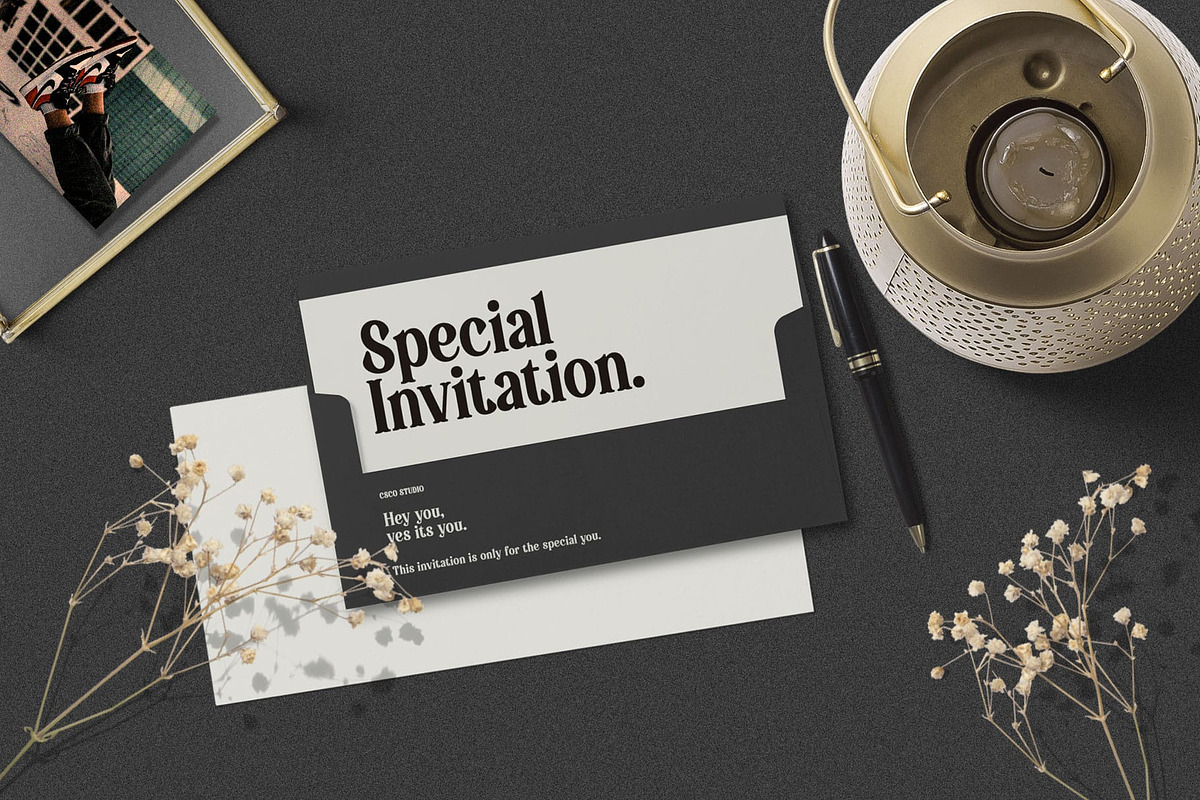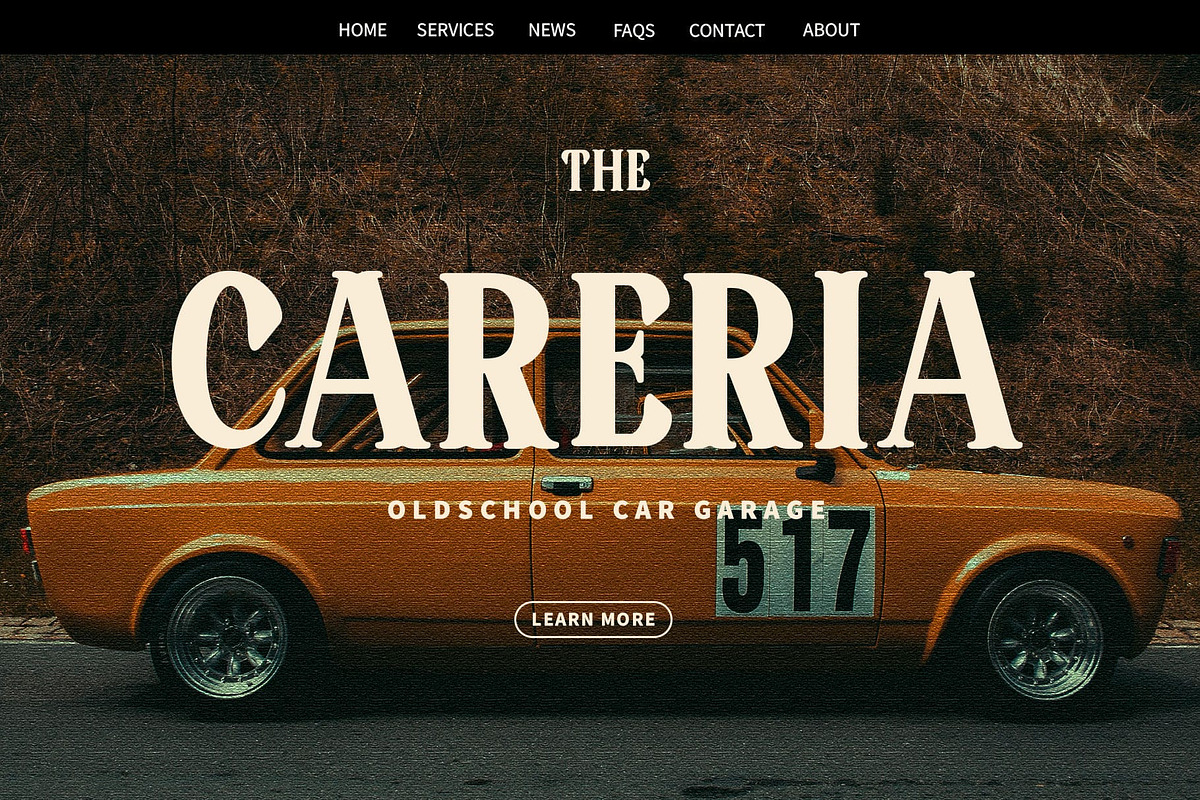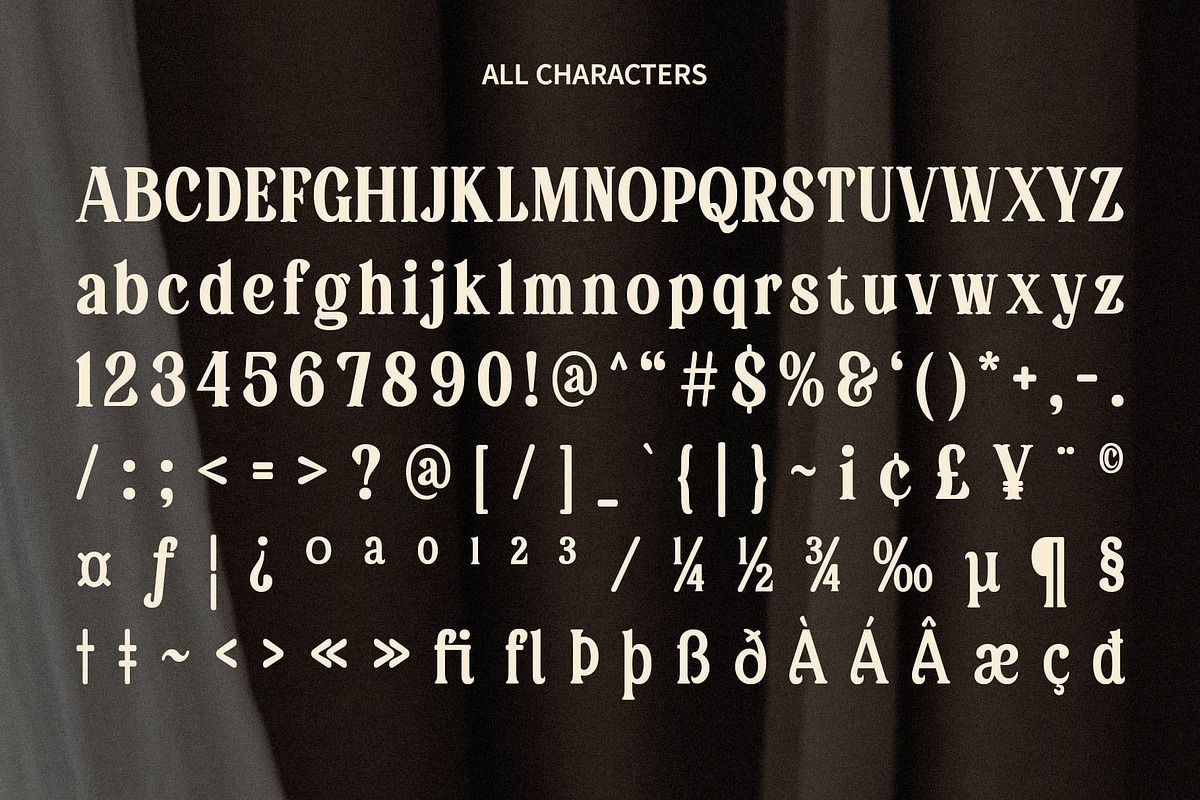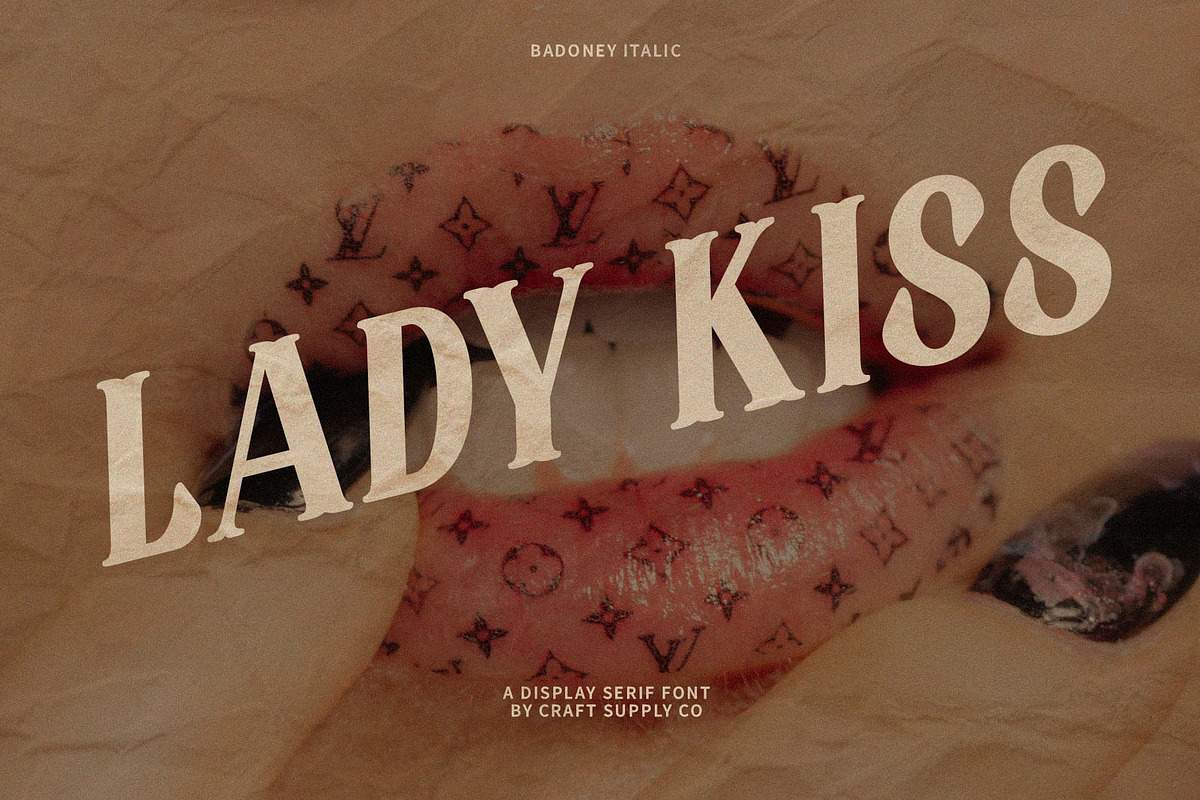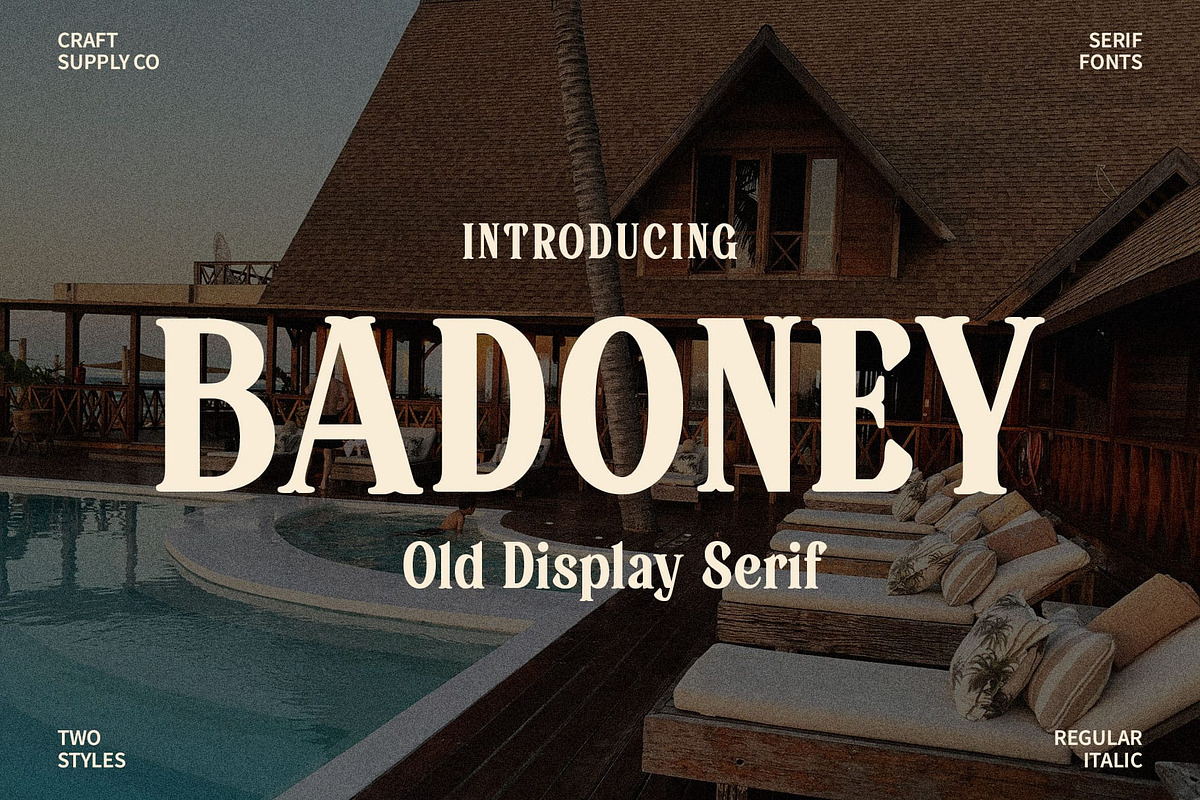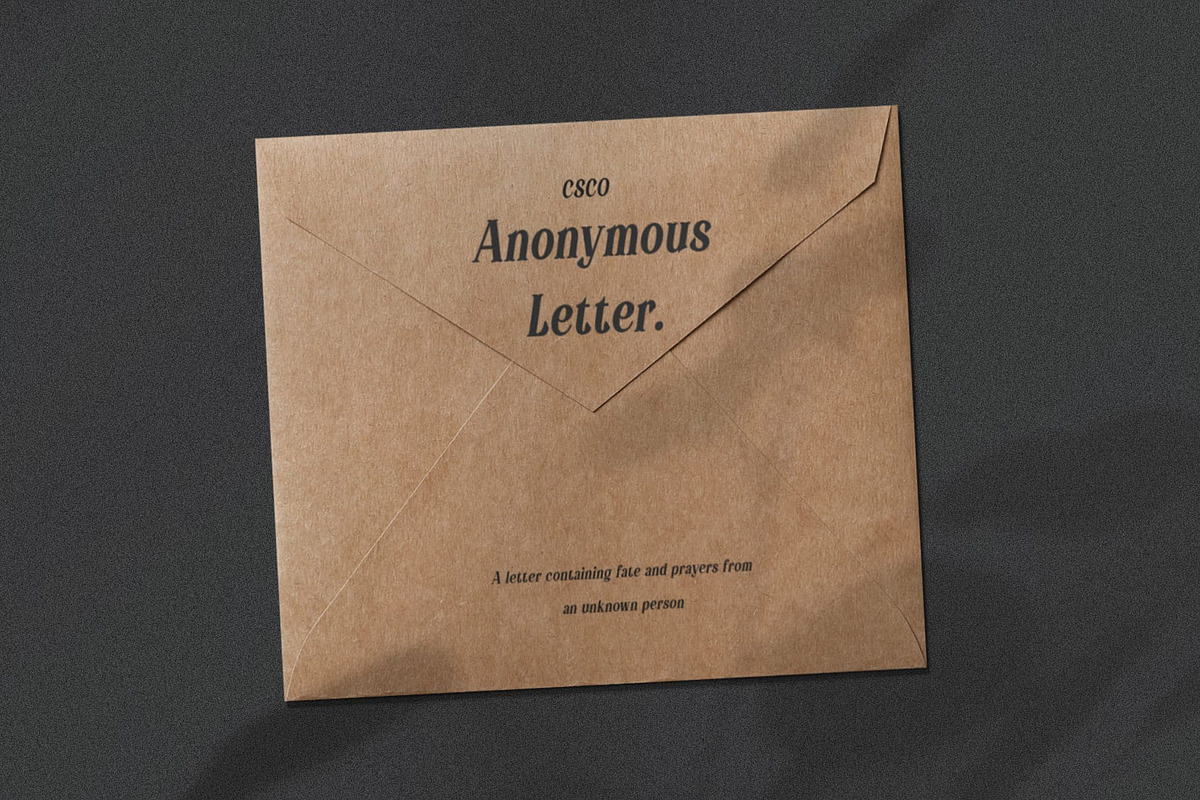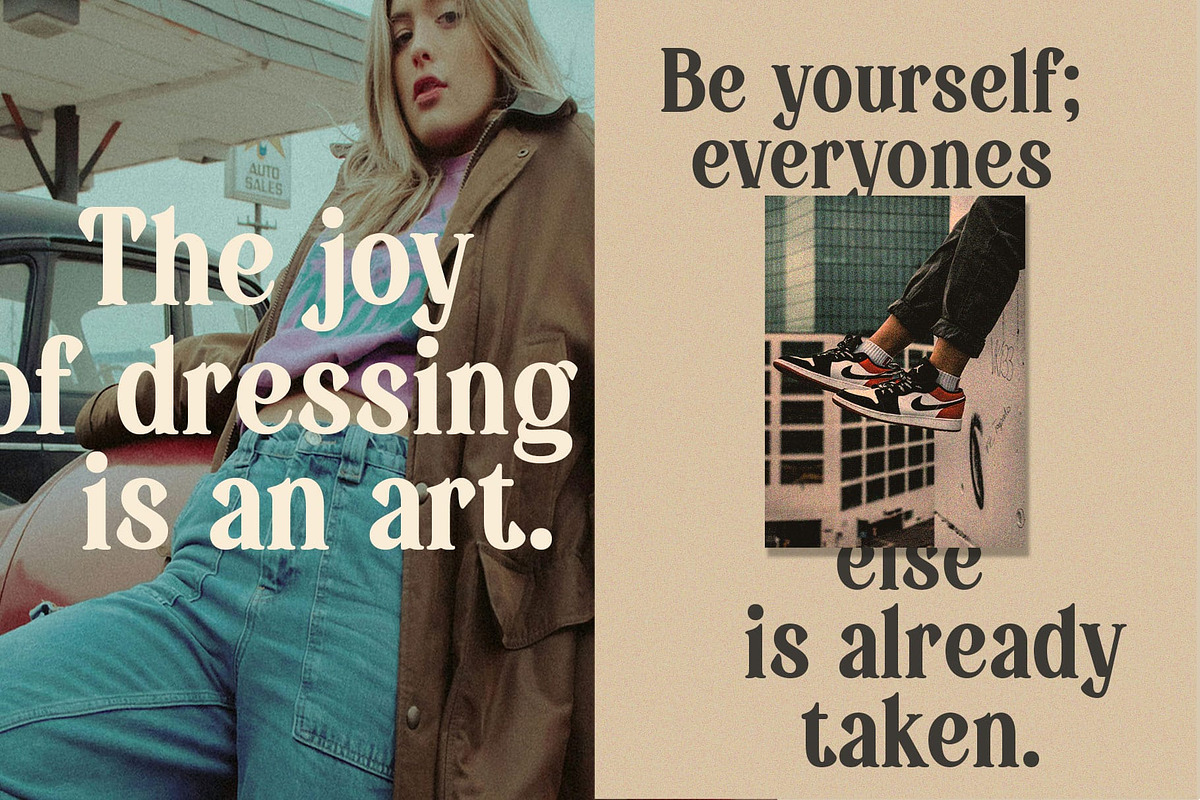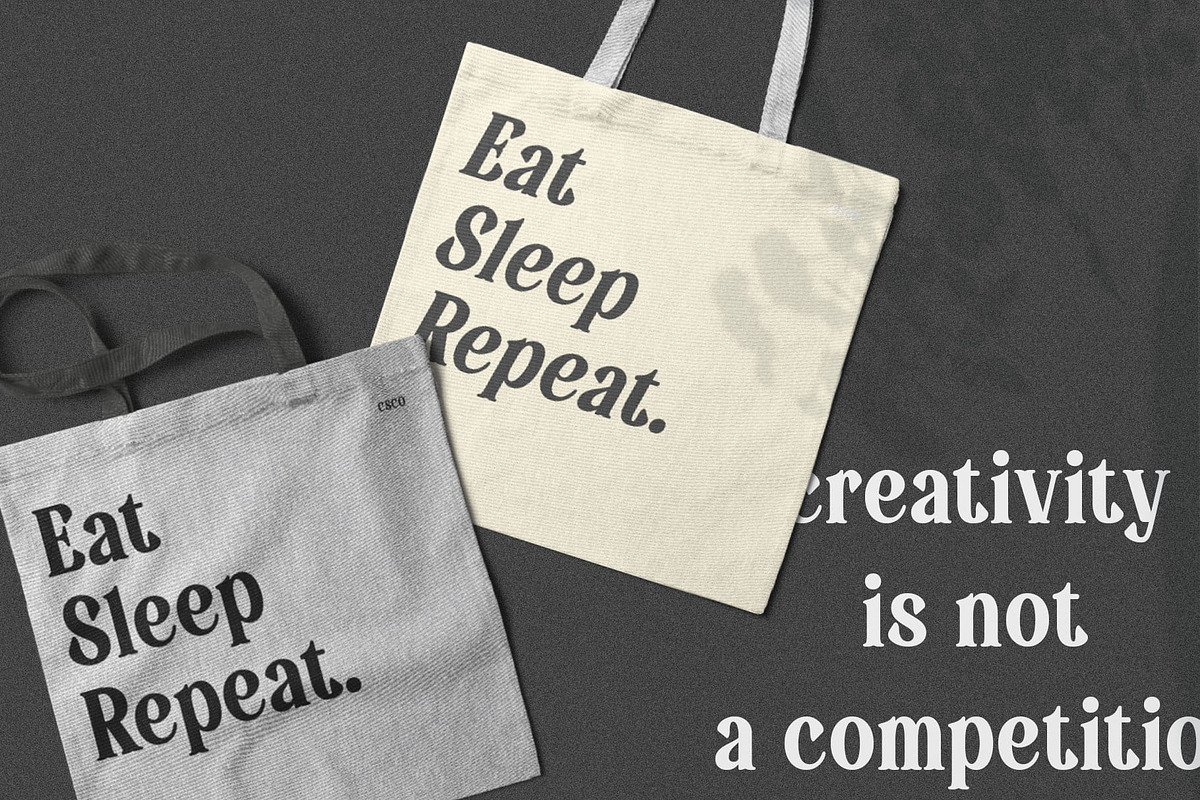
Badoney – Stylish Serif
Badoney Font: Elevating Style in Typography
Stylish Sophistication Badoney, a serif font that epitomizes stylishness, emerges as the perfect choice for impactful display and captivating titles, setting a new standard in typography.
Elegance in Every Curve Each character of Badoney is meticulously crafted, showcasing an exquisite balance of curves and lines that redefine elegance in serif fonts.
Versatile Impact Whether gracing the cover of a magazine or enhancing a website’s title, Badoney’s versatility ensures an impactful and stylish presence across various design platforms.
Crafting Unforgettable Impressions Badoney doesn’t just create words; it crafts impressions. With its stylish serif design, it elevates your message, leaving an indelible mark on your audience.
Conclusion Badoney’s stylish serif is more than a font; it’s a design statement. Embrace sophistication, choose Badoney, and let your titles and displays become a canvas for stylish creativity. Elevate your design game with the timeless charm of Badoney – where style meets substance.